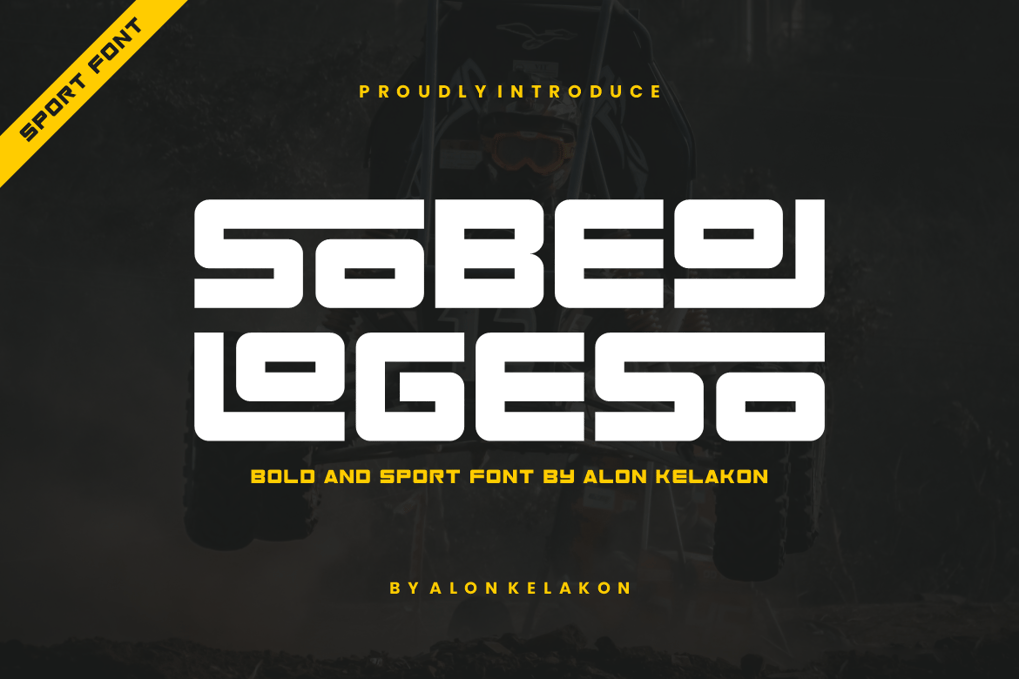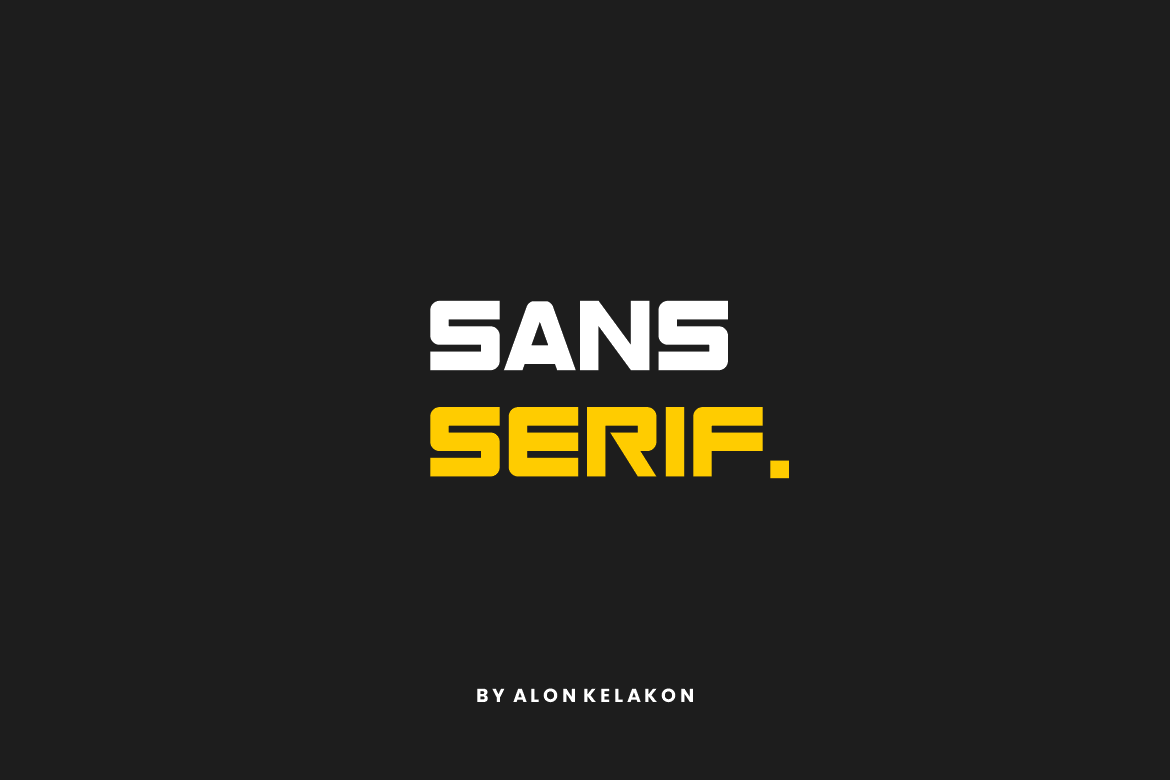
Sobeoj Logeso – Bold & Sport Font Font is unique . Ready to use for your design like labeling, movie sceen, poster, movie title, gigs, album covers, logos, and much more.